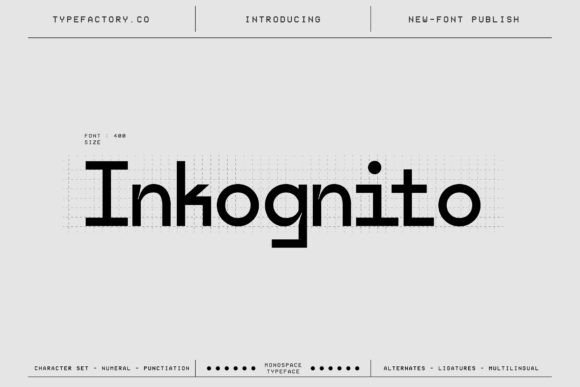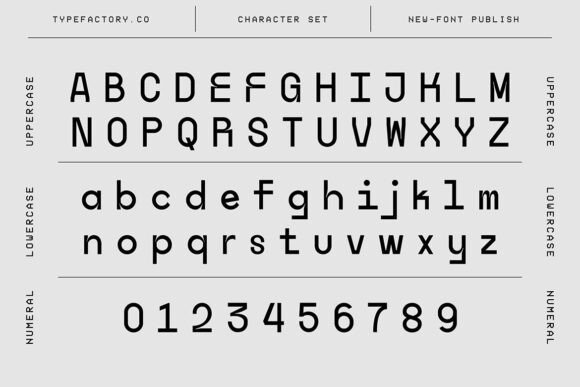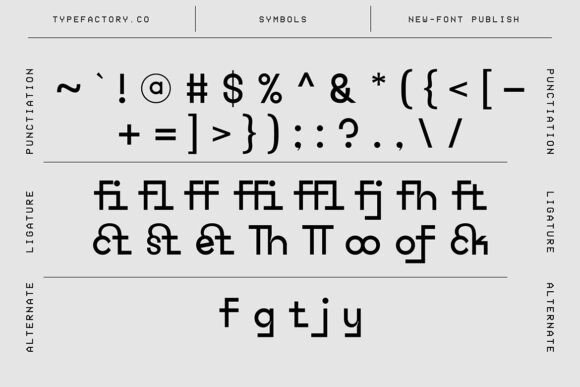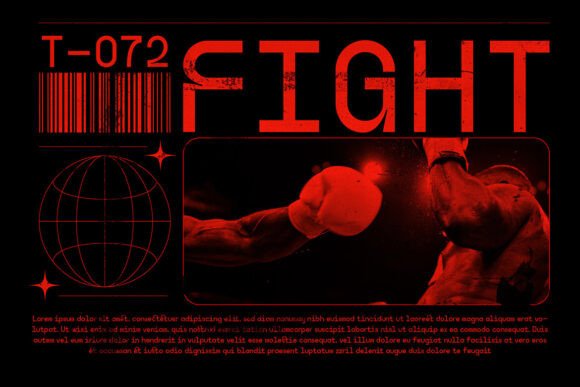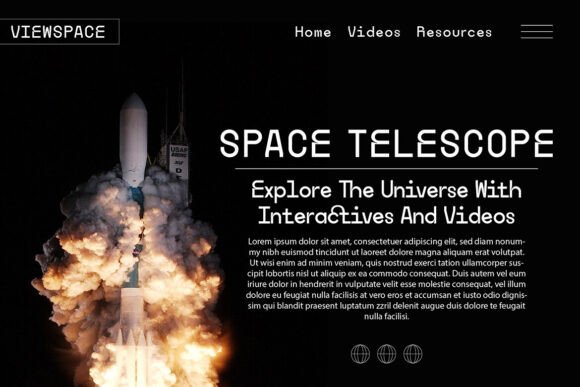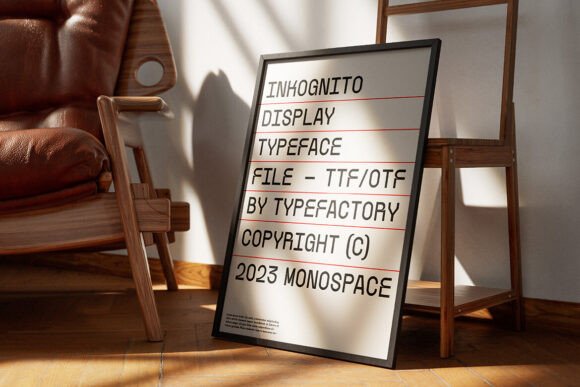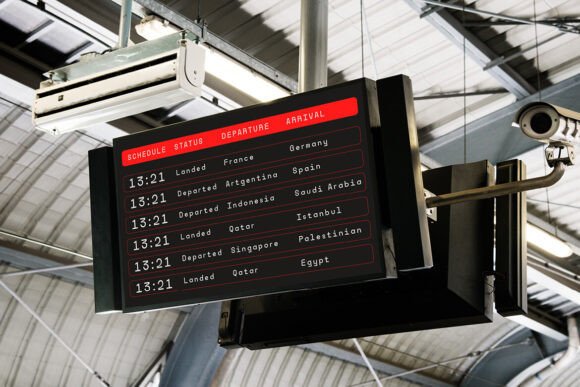
Unveiling the Perfect Blend of Function and Aesthetics
Have you ever found yourself staring at a blank canvas, desperate for the perfect font to bring your design to life? The moment of truth arrives when you discover a font that not only meets but exceeds your expectations. For designers seeking a harmonious balance between precision and style, the Inkognito Font is a revelation.
This exceptional monospaced font masterfully combines the dependability of fixed-width characters with a sleek, modern aesthetic. Whether you’re crafting a coding application, technological branding, or editorial design, the Inkognito Font’s unified letterforms ensure a consistent and readable presentation. Its minimalist design imparts a sense of surgical order and functionality, making it an invaluable asset for designers who demand precision and clarity in their work.
Inkognito Font Key Features
- Font Family: Inkognito Font is a sans-serif font family designed for digital use. It comes in multiple weights and styles.
- Font Size: Inkognito Font is available in 7 weights, ranging from Light (100) to Extra Bold (800), offering a wide range of font sizes for various design applications.
- Resolution: Inkognito Font is optimized for high-resolution displays, including Retina and 4K screens, ensuring crisp and clear typography at any zoom level.
- Unique Characteristics: Inkognito Font features a distinctive, modern design with a subtle geometric flair, making it suitable for a wide range of digital applications, from corporate branding to editorial design.
- Language Support: Inkognito Font supports a wide range of languages, including Latin, Cyrillic, and Greek scripts, making it a versatile choice for global design projects.
Inkognito Font Review
Overall, I think Inkognito is a decent choice for those who want a modern sans-serif font. It’s clean and minimalistic, making it perfect for corporate materials, digital products, and any other situation where simplicity is key. ✨
Here are some of the things that I think work well with Inkognito:
- Clean lines and minimal ornamentation make it easy to read, even at smaller sizes.
- It’s highly legible, which is a must for any font.
- It’s a great choice for digital products, as it’s easy to see on a variety of screen sizes and resolutions.
- It’s available in a wide range of weights, making it easy to customize to suit your needs.
However, I do have a few reservations about Inkognito:
- ⚠️ The font is not as unique as some other sans-serif fonts on the market. It’s a fairly generic choice, and it may not stand out in a crowded market.
- ⚠️ The font’s minimalism can sometimes make it feel a bit sterile or unengaging. This may not be a problem for corporate or digital materials, but it could be a issue for more creative projects.
Overall, I would say that Inkognito is a solid choice for those who want a clean, modern font. While it may not be the most unique or exciting choice, it’s a reliable option that will get the job done. ✨
Inkognito Font: A Practical Application Guide
Tips for Getting the Most Out of Inkognito Font
Use Inkognito Font for titles, headings, and other emphasis text to add a touch of elegance to your designs.
Combine Inkognito Font with other fonts to create a unique and sophisticated typography style.
Experiment with different font sizes and colors to achieve the desired visual effect.
Use Inkognito Font for:
– Book covers and interior design
– Magazine and newspaper headlines
– Website and app titles
– Business cards and letterheads
Alternatives to Inkognito Font
Montserrat is a sans-serif font designed for urban environments. It’s great for use in digital design, particularly on screens and websites. Montserrat is more geometric and modern compared to Inkognito Font, which has a more distressed look.
Abril Fatface is a serif font with a vintage feel. It’s perfect for use in print design, such as posters, magazines, and book covers. Compared to Inkognito Font, Abril Fatface has a more elegant and refined look, but it lacks the edgy feel of Inkognito.
Q: Does the Inkognito Font support font variants and languages?
The Inkognito Font includes a range of font variants, including light, regular, bold, and italic styles. The font also supports a wide range of languages, including English, Spanish, French, German, Chinese, Japanese, and many more. This makes it an ideal choice for global brands and organizations that need to communicate in multiple languages.